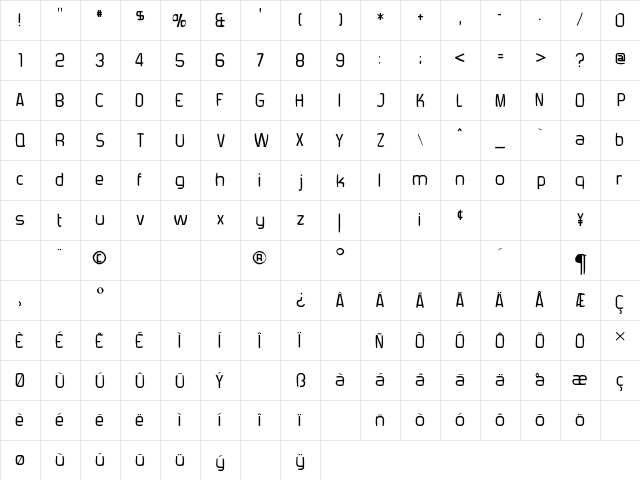
Forgotten Futurist Rotten has a distinctly futuristic character, with geometric precision and clean angles that feel at home in technology, gaming, and sci-fi contexts.
Ideal for esports teams, cyberpunk aesthetics, fintech brands, and anything that needs to feel forward-looking.
Font Pairing: Pairs well with a humanist sans-serif for body copy - the contrast between mechanical precision and organic warmth creates a compelling typographic dynamic.
Pro Tip: Try Forgotten Futurist Rotten with generous letter-spacing in UI labels and navigation - the geometric forms benefit from room to breathe.